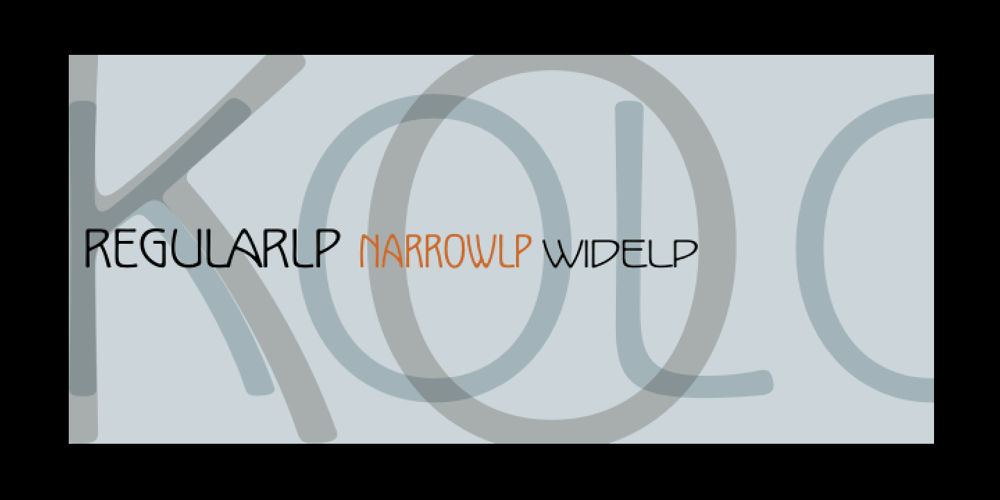
Kolo LP Font Family was designed by Garrett Boge, Paul Shaw and published by LetterPerfect. Kolo LP contains 4 styles and family package options. The Kolo family was designed by Paul Shaw, inspired by the lettering of Koloman Moser, Gustav Klimt, Alfred Roller and other members of the Secession, Vienna’s turn-of-the-century Art Nouveau movement. Kolo’s family variants—narrow, regular, wide & alternates—serve as stand-alone display styles, or can be used in combination to pack text creatively in the manner characterized by Secession-period graphics.